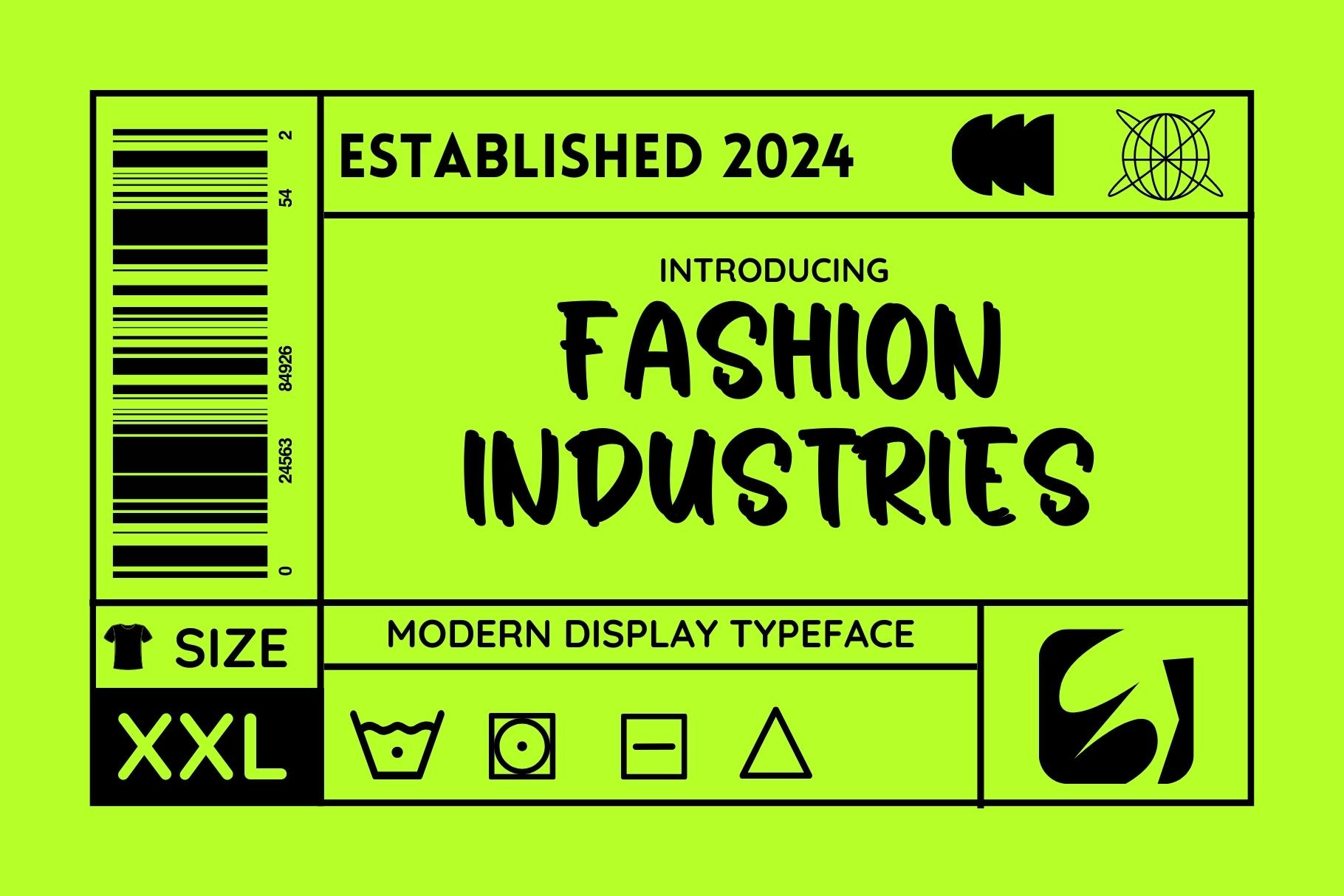
Fashion Industries
Fashion Industries is a font family published by Aditastudios.
Fashion Industries is a delicate, elegant, and flowing handwritten font. It has beautiful and well-balanced characters and as a result, it matches a wide pool of designs. This font is PUA encoded, which means you can access all of the glyphs and swashes with ease!
Foundry Aditastudios